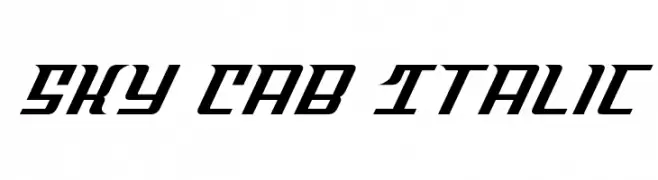
• Sky Cab Bold
A bold, dynamic font with sharp angles and high contrast.
• Sky Cab Chrome
A bold, futuristic font with a three-dimensional effect and geometric design.
• Sky Cab Condensed
A bold, slanted, and condensed geometric font with a dynamic appearance.
• Sky Cab Expanded
A bold, dynamic font with a futuristic and sporty aesthetic.
• Sky Cab Gradient
A bold, futuristic font with a gradient effect and angular, slanted characters.
• Sky Cab Halftone
A bold, dynamic font with a halftone effect and slanted characters, ideal for futuristic designs.
• Sky Cab Halftone 2
A bold, futuristic font with a halftone effect and slanted characters.
• Sky Cab Italic
A bold, italicized font with angular, futuristic letterforms.
• Sky Cab Laser
A futuristic, angular font with a bold and dynamic style.
• Sky Cab Leftalic
A bold, angular font with a dynamic rightward slant, exuding energy and modernity.